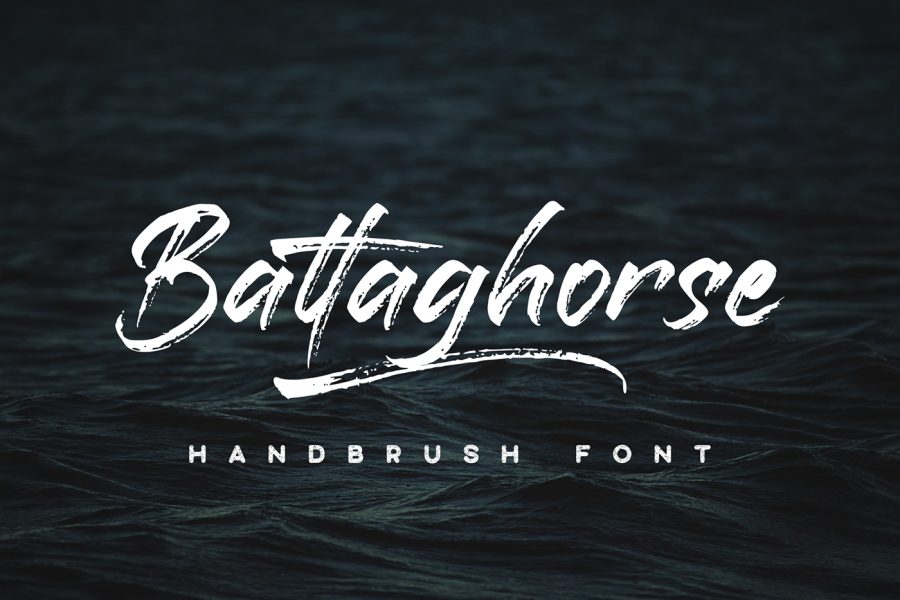
Free Battaghorse Handbrush Font
Ghuroba Studio is back with a beautiful font which is Free Battaghorse Handbrush Font. It is a brush font that you can easily install and use on your devices as well. This font is very suitable for your works such as flyers, congratulations cards, cards, business cards, billboards, and more. This is a demo font that already set up as an OTF file, also this freebie is completed with web font. However, this demo font absolutely comes with a personal use license, you can get a commercial license unless you purchase it.